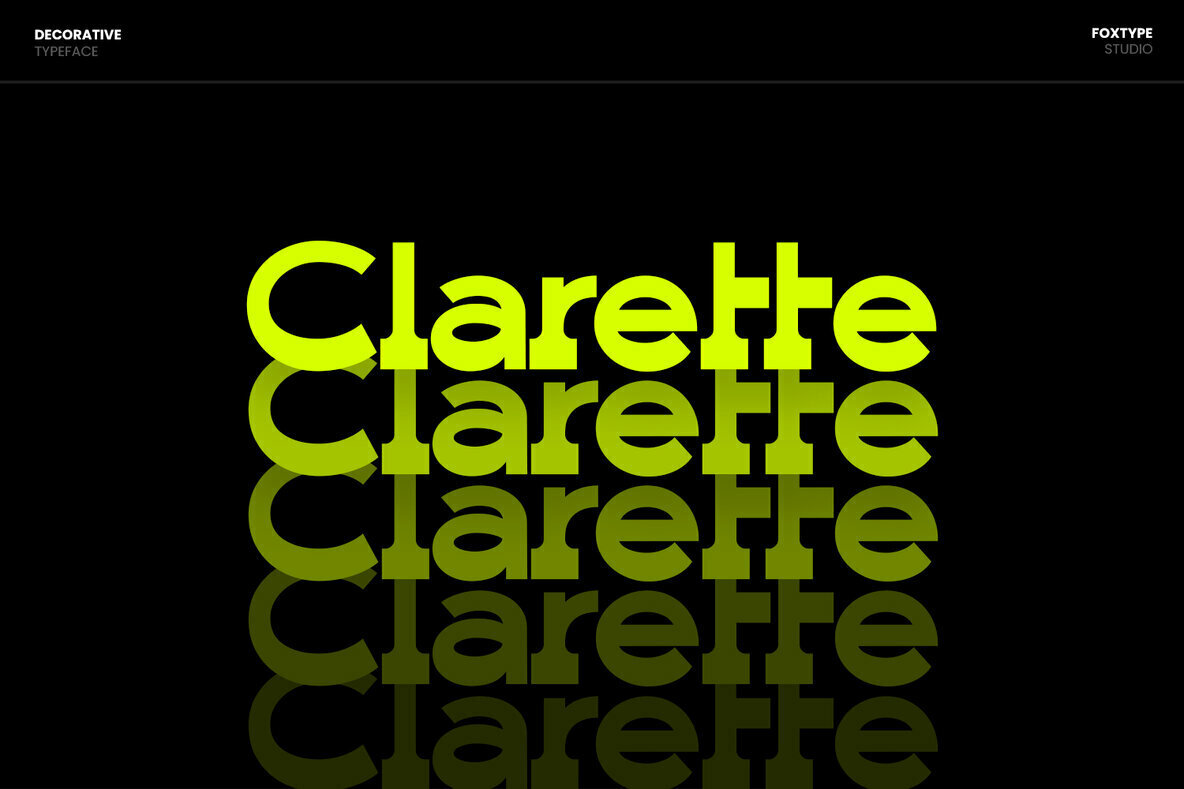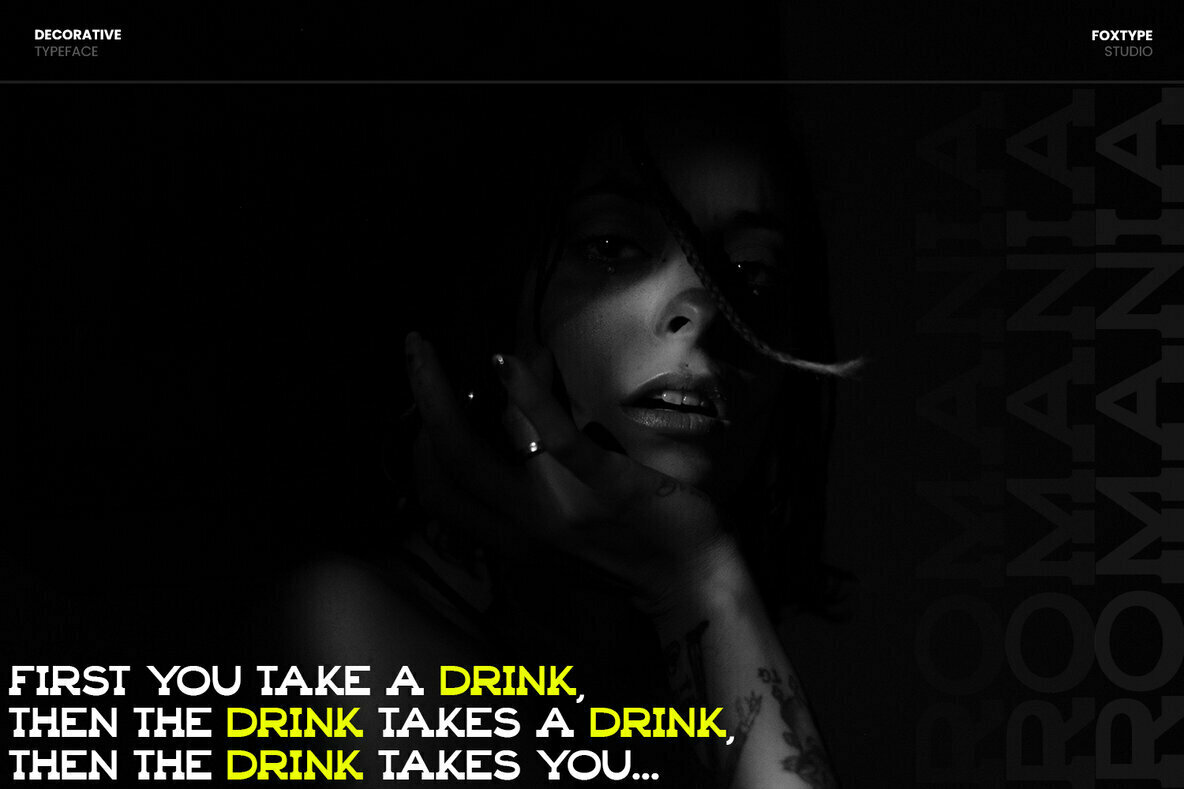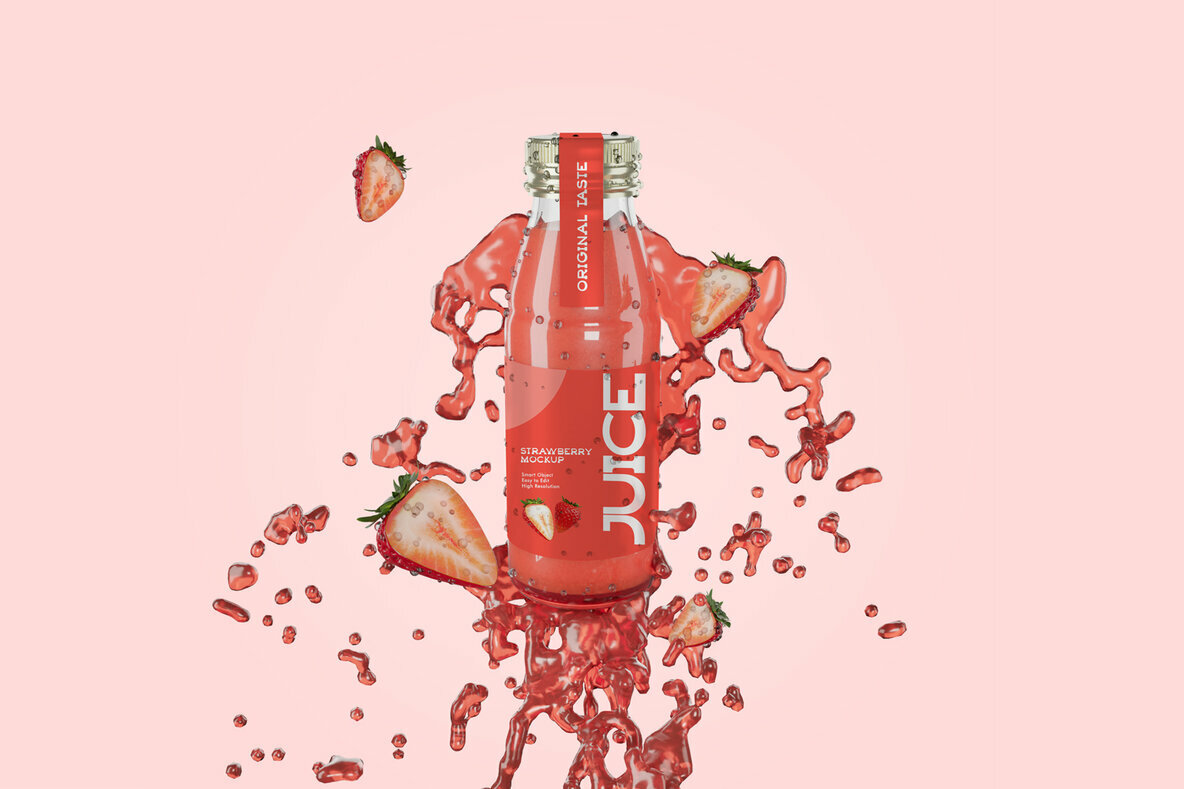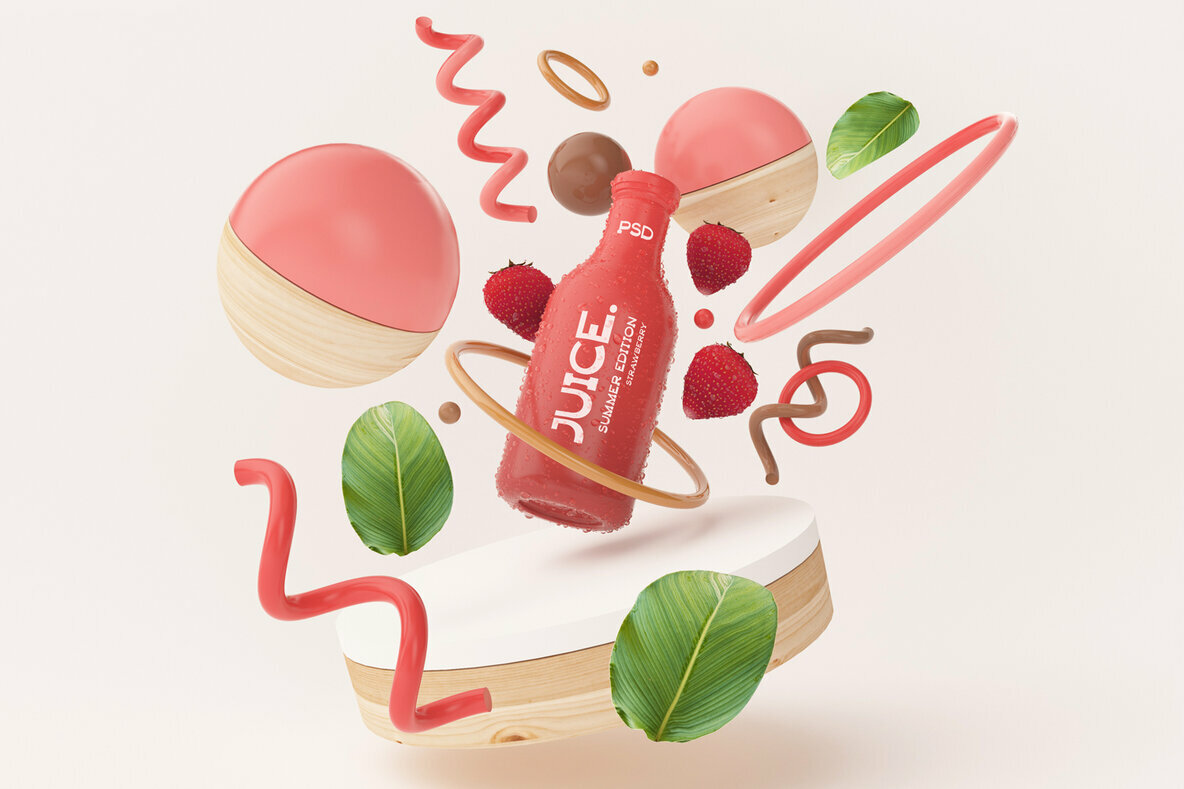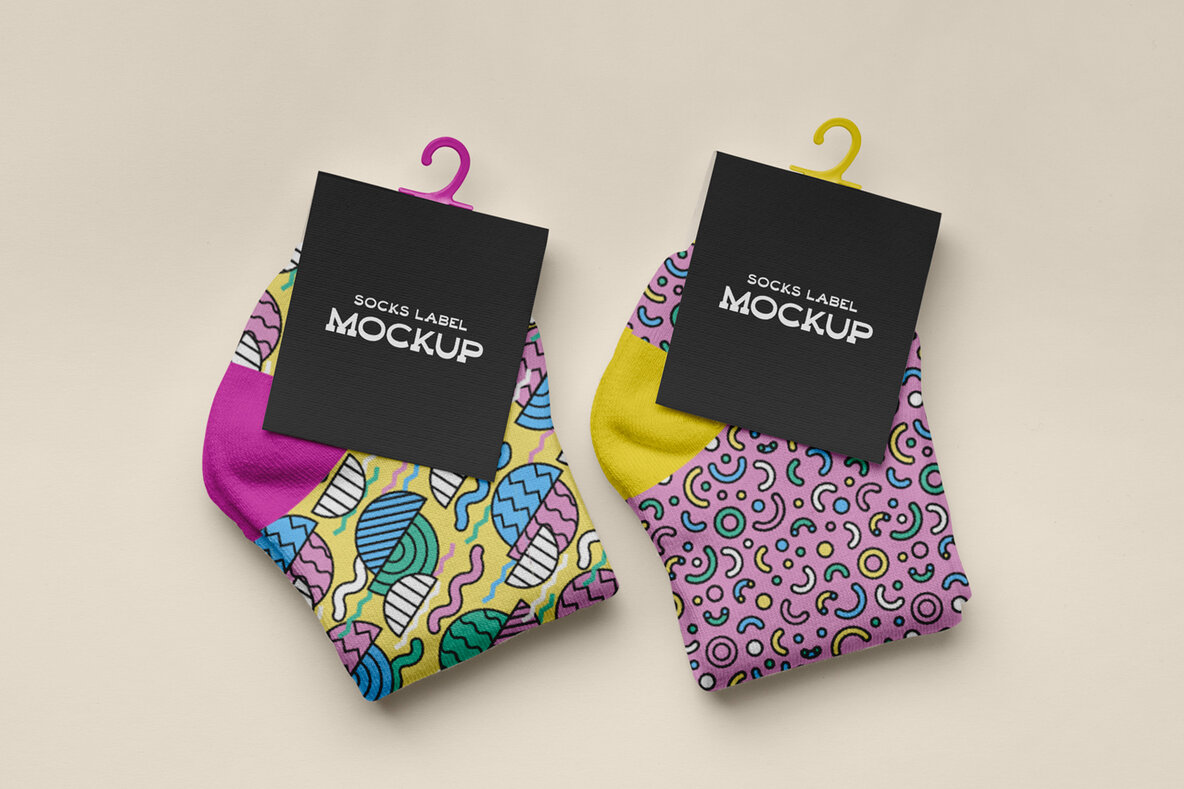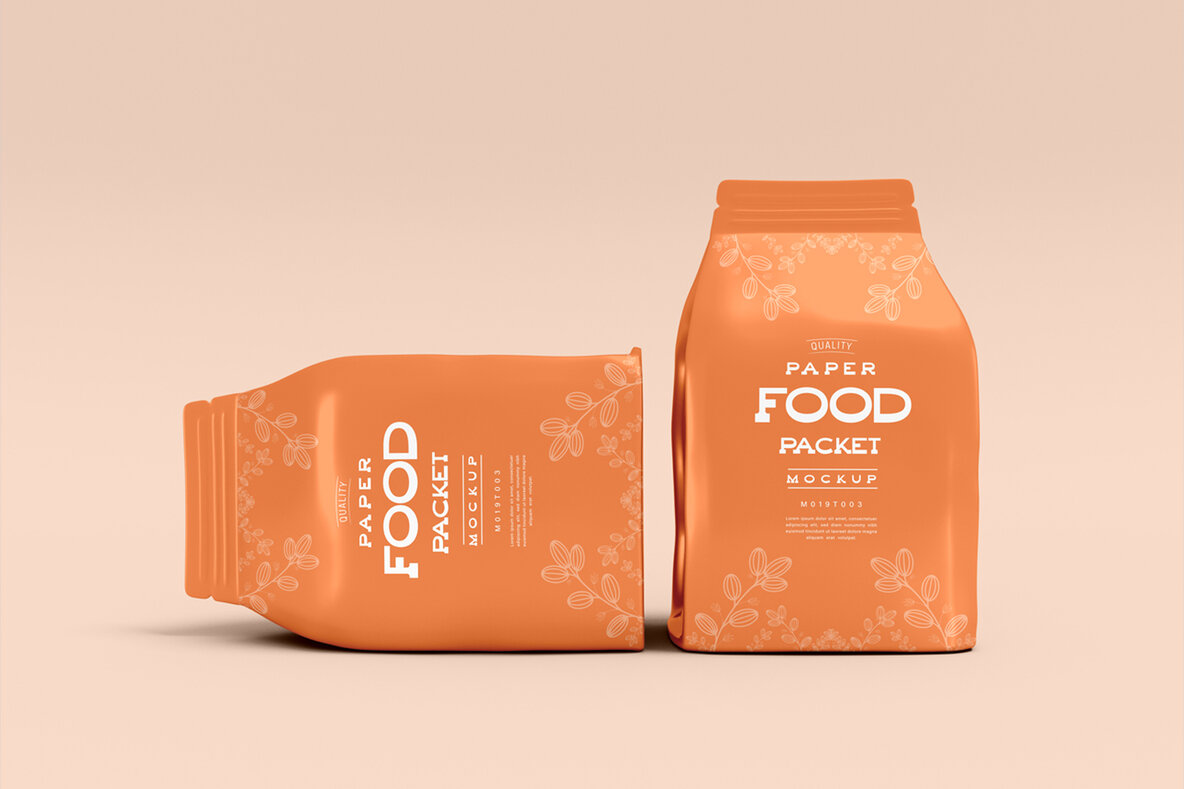
Macallan Font
Macallan Decorative by FoxType Co is a notable modern elegant typeface recognized for its versatility and distinct style. With its ability to perform well in both large and small sizes, Macallan is ideal for a variety of design contexts like branding, logos, headlines, and captions. Its strong capitals, combined with a smooth and open lowercase, create a dynamic typeface that balances clarity with character. This typeface's minimalist yet warm aesthetic offers a quirky charm, making it a perfect choice for those seeking a unique text overlay on any background image. Designed to be easily readable, Macallan embodies a clean and versatile approach suitable for diverse applications.Macallan Decorative: A Unique Typeface for Modern Elegance